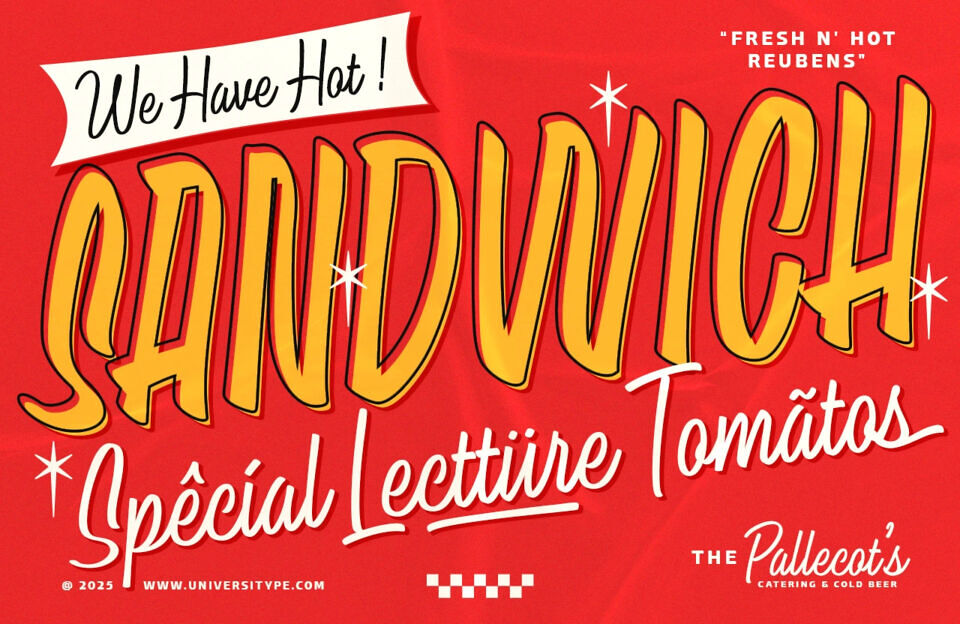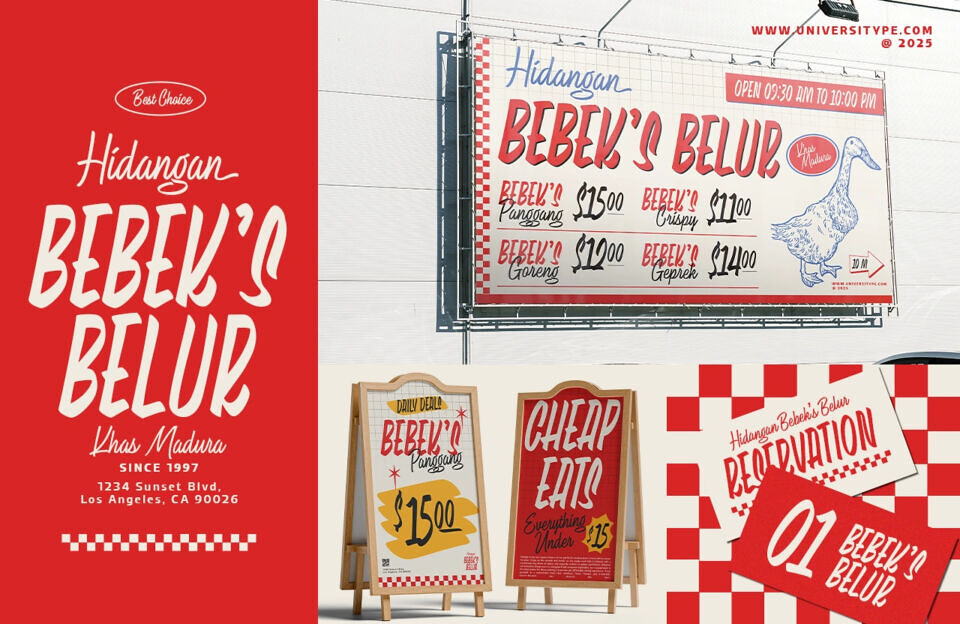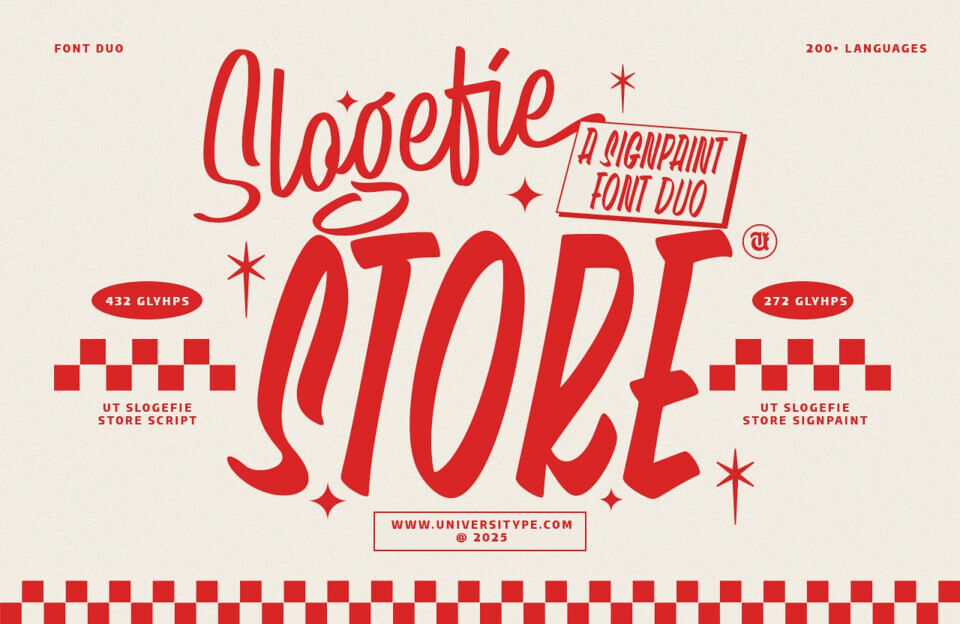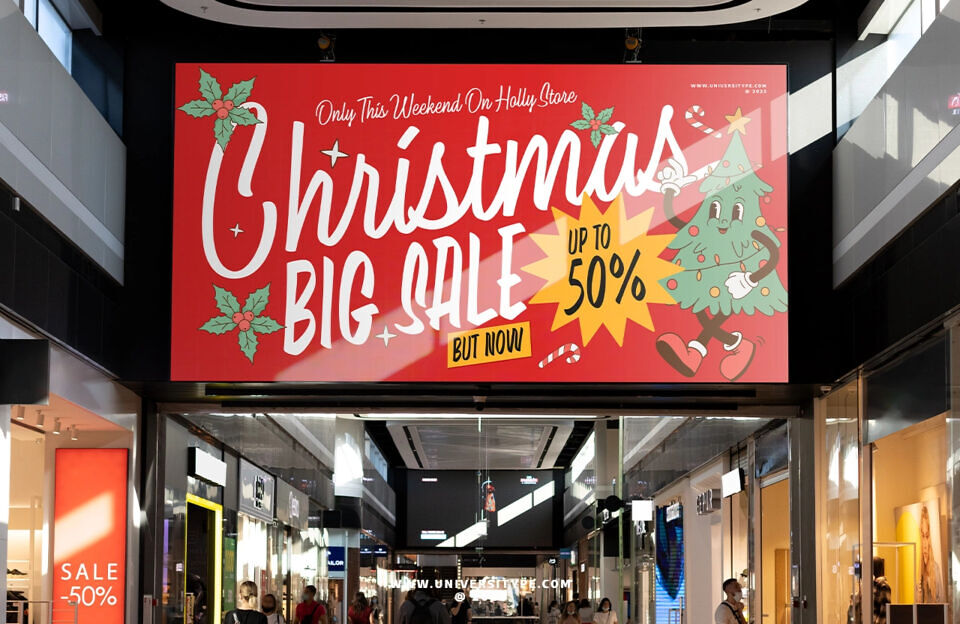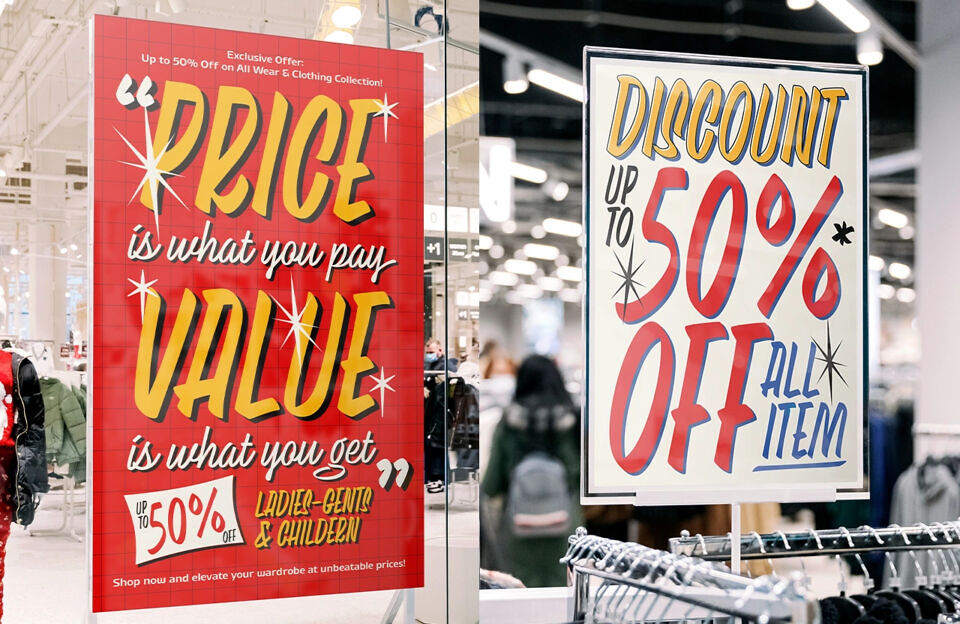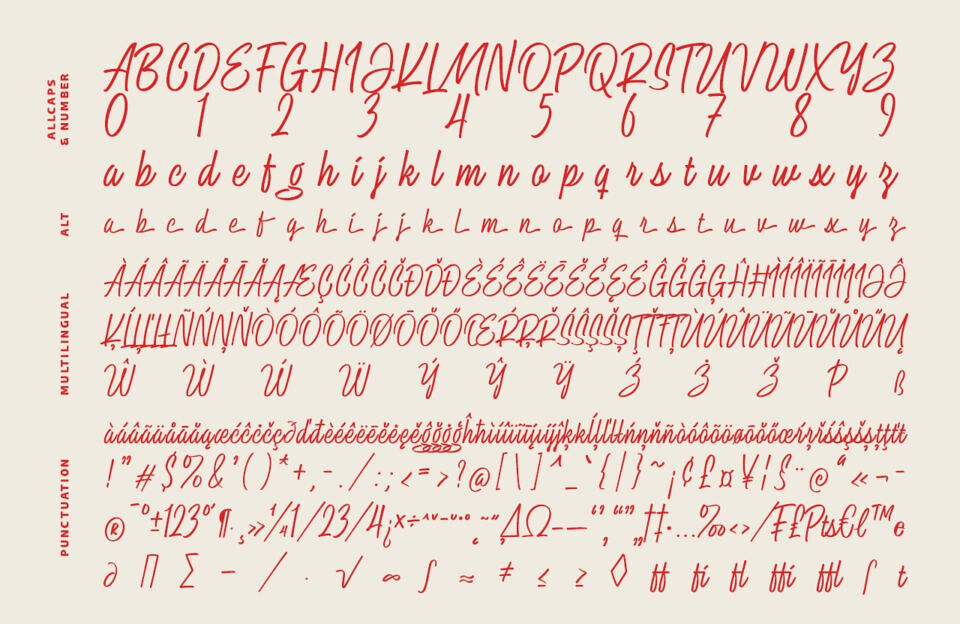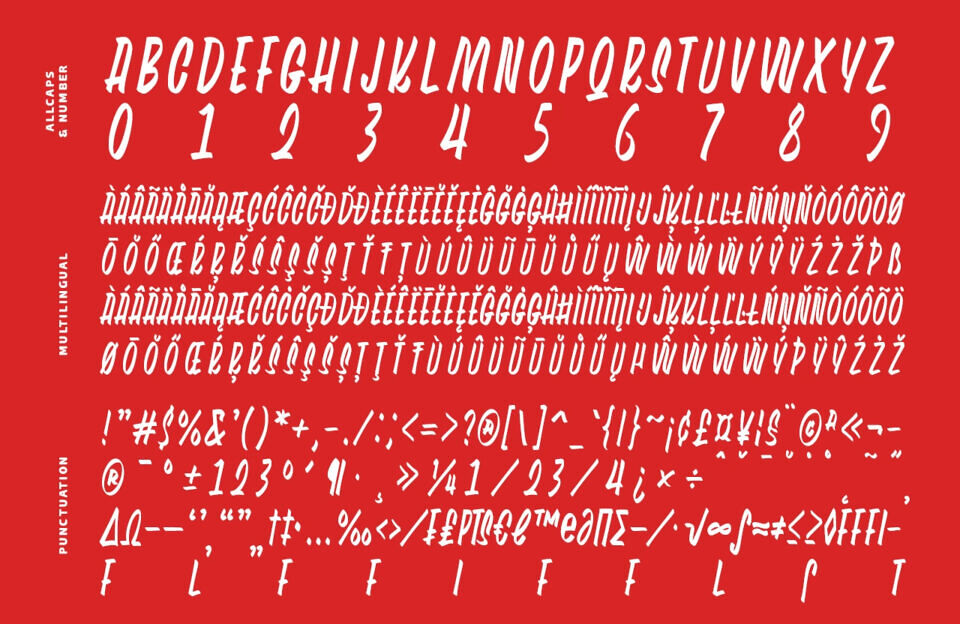
Introducing UT Slogefie Store, a vibrant and versatile font duo that combines the charm of script with the boldness of signpaint. Perfect for creating eye-catching designs that stand out, UT Slogefie is ideal for branding, advertising, and any creative project that requires a touch of flair and personality.
UT Slogefie draws inspiration from classic signage and hand-lettering techniques, infusing a modern twist to create a font that is both nostalgic and contemporary. The design aims to evoke the lively atmosphere of vintage storefronts and the personal touch of handcrafted art.